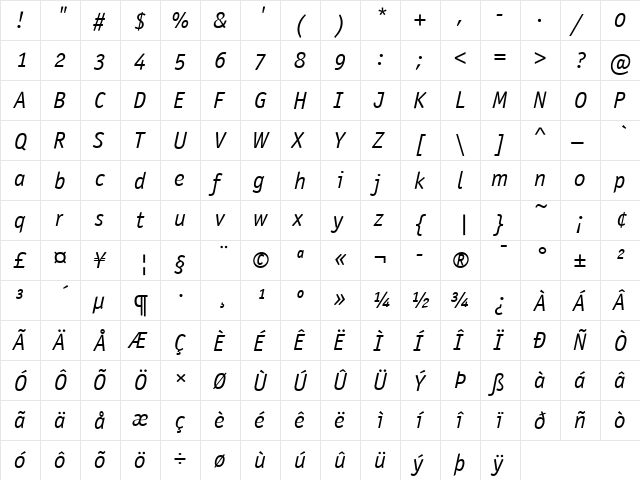
Officina Sans ITC Book Italic
Design Context for Officina Sans ITC Typeface
Officina Sans ITC takes a measured approach to typography — its balanced proportions and neutral character make it a reliable workhorse for both digital and print work. Its italic angle brings a sense of urgency and motion to the letterforms.
Pro Tip: Try Officina Sans ITC for annotation and caption copy alongside an upright companion — the contrast in angle creates a dynamic but ordered typographic system.